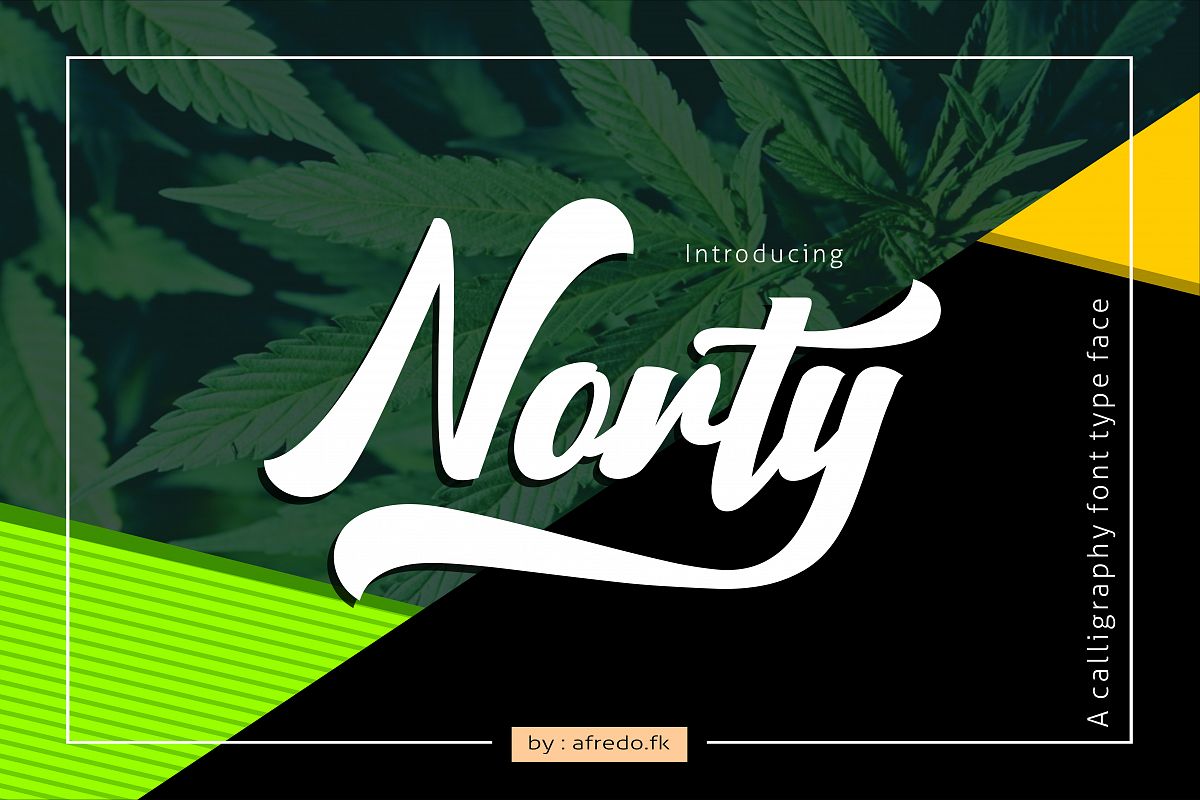
Norty
new fresh & modern script with a  handmade calligraphy style, decorative characters and a dancing  baseline! So beautiful on invitation like greeting cards, branding  materials, business cards, quotes, posters, logo and more!! The alternative  characters were divided into several Open Type features such as Swash,  Stylistic Sets, Stylistic Alternates, Contextual Alternates. The Open  Type features can be accessed by using Open Type savvy programs such as  Adobe Illustrator, Adobe InDesign, Adobe Photoshop Corel Draw X version, And Microsoft Word. And this Font has given PUA unicode (specially  coded fonts). so that all the alternate characters can easily be  accessed in full by a craftsman or designer.Norty : Uppercase & Lowercase International Languange & Symbols  Support Punctuation & Number PUA Unicode Range Standard Stylistic  Alternates Stylistic Set 1-11 Character Variant Contextual. The ZIP file are include the following :